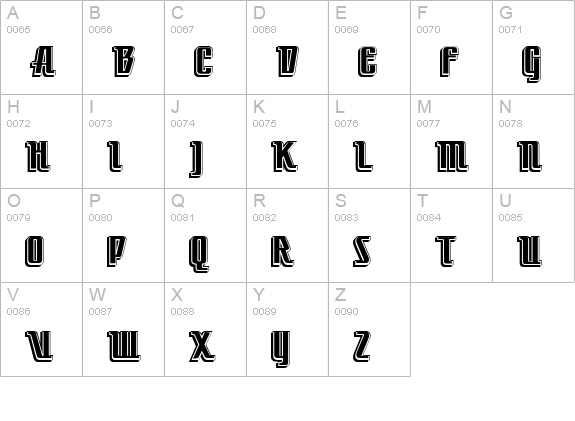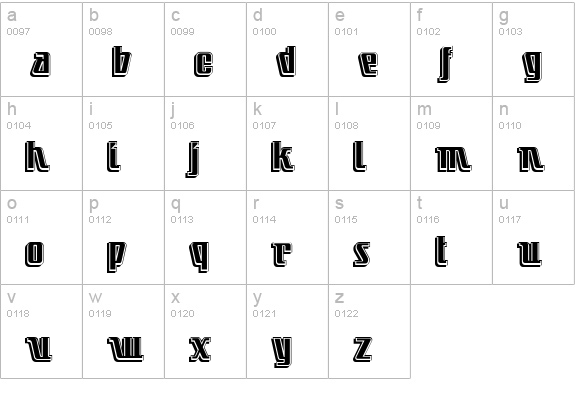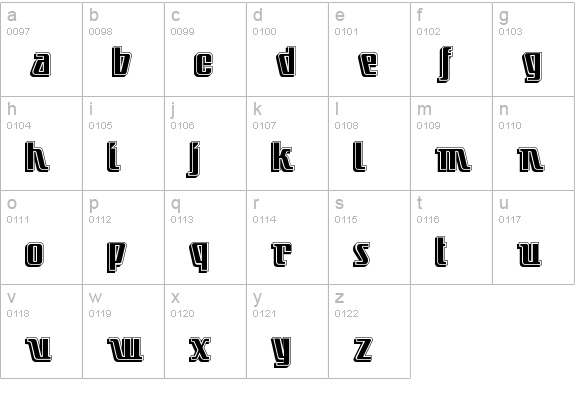
Little Deuce Coupe NF Font Details
Little Deuce Coupe NF font is a playful and whimsical display typeface that exudes a retro vibe with its unique design. Featuring bold, rounded letterforms with a vintage touch, this font is perfect for adding a fun and quirky element to your projects. Whether you're working on a poster, logo, or any other creative design, Little Deuce Coupe NF font will surely stand out and make a statement. The best part? Little Deuce Coupe NF font is completely free to download at FontsMarket.com. You can easily access this charming font and use it in your personal or commercial projects without any restrictions. Don't miss out on this fantastic opportunity to enhance your designs with the delightful Little Deuce Coupe NF font.